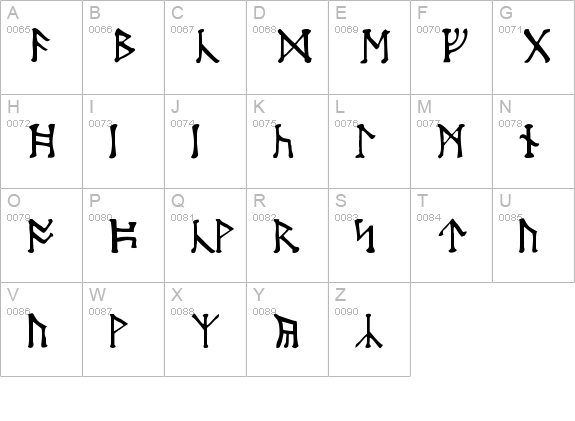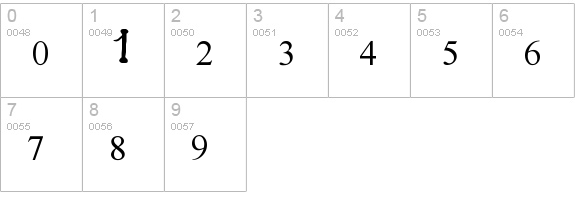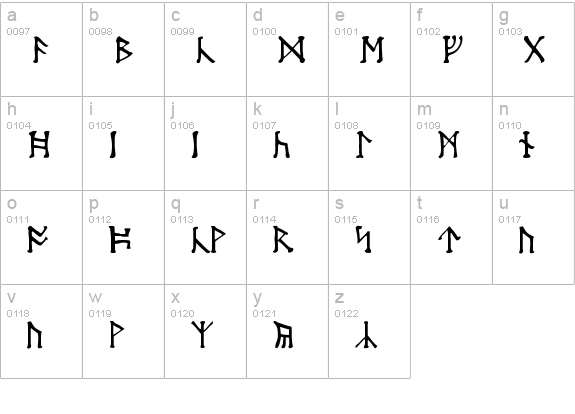
Moon Runes font is a mystical and enchanting typeface that evokes the ancient symbols of the moon and stars. Its intricate and flowing design is perfect for adding a touch of magic to your projects, whether you're working on a fantasy novel, a mystical poster, or a spiritual website. This unique font is not only visually captivating, but also highly versatile, making it suitable for a wide range of creative endeavors. Its elegant curves and intricate details are sure to make your text stand out and captivate your audience. Best of all, Moon Runes font is available for free download at FontsMarket.com. So whether you're a professional designer looking to add something special to your projects or a hobbyist looking to experiment with new fonts, Moon Runes is the perfect choice. Download it today and let its magical charm inspire your next creative endeavor.